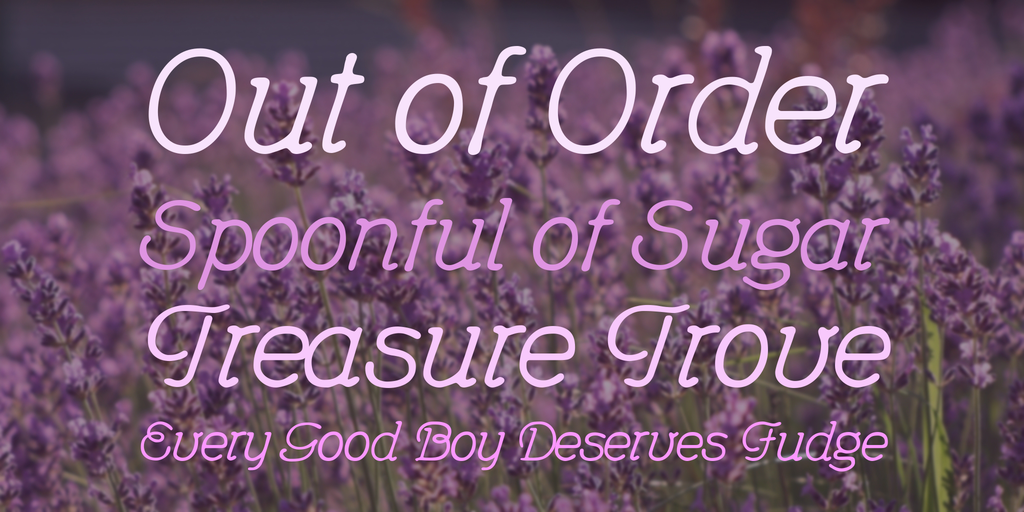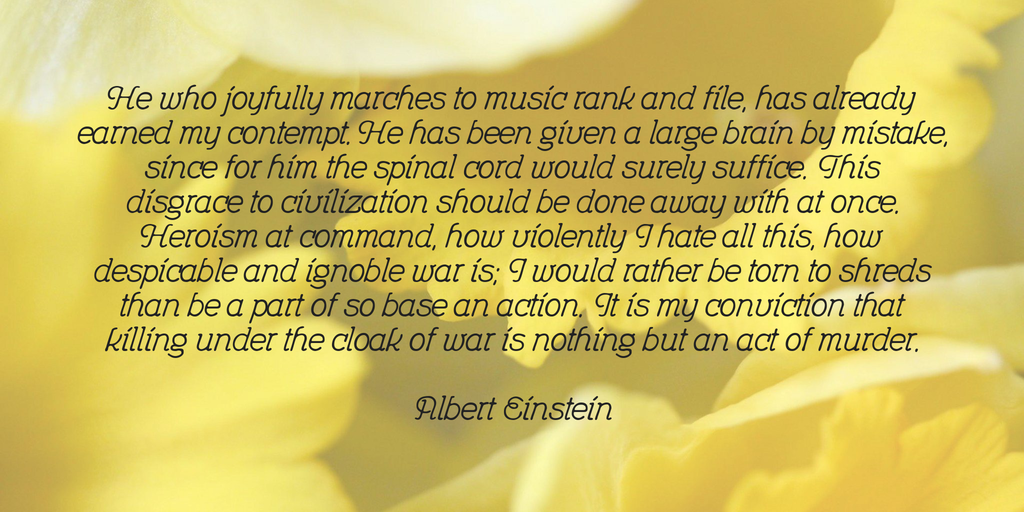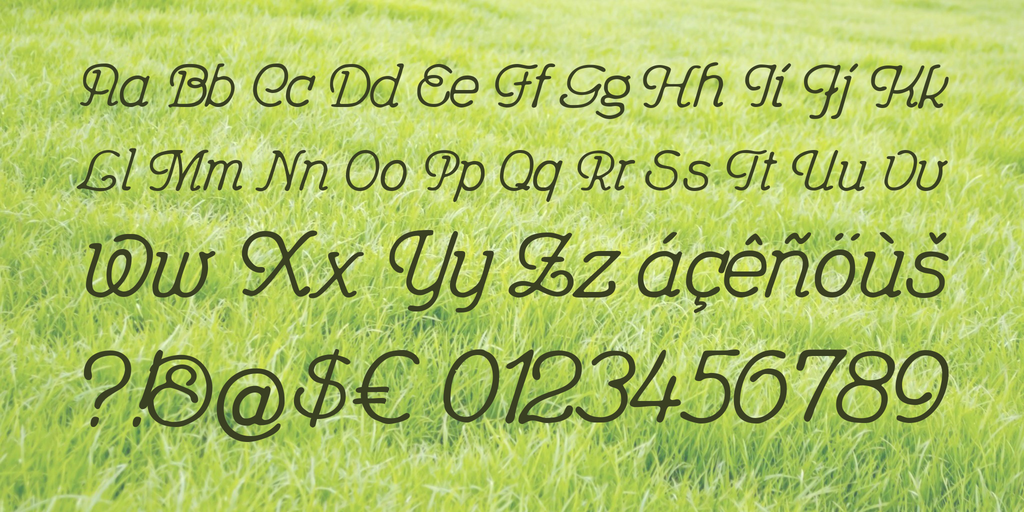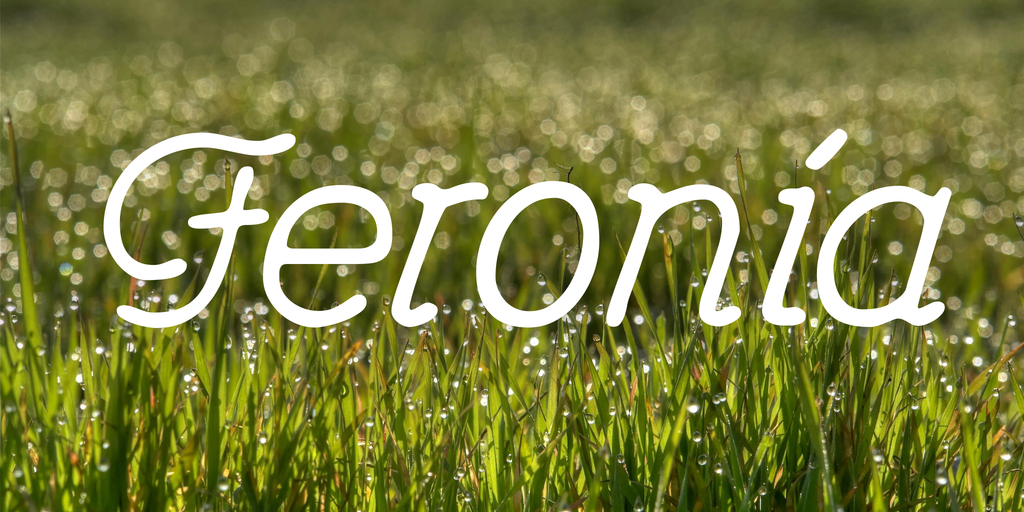
Feronia Font
Feronia was an old Italian goddess, also worshiped in Rome. Allegedly she originated from Sabine, adjoined to Jupiter Anxur or the Apollo Soranus, therefore she is also called Juno Feronia. Since her name means the flower lover and is put aside the goddess Proserpina, one is likely to see her as a spring- or earth goddess. Since I couldn’t think of anything better and because this is my Spring font of the year, I have just given it this name. Please donate if you like the font!